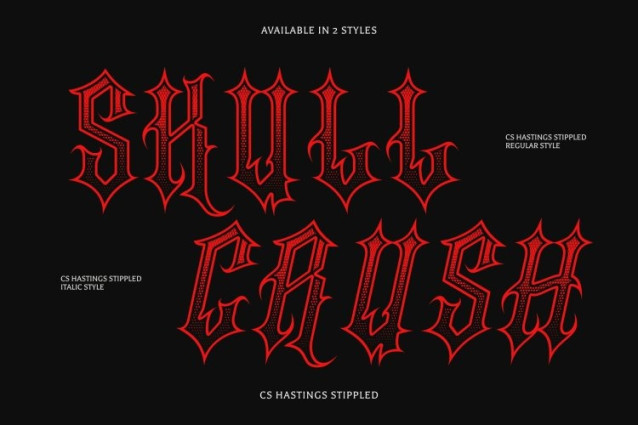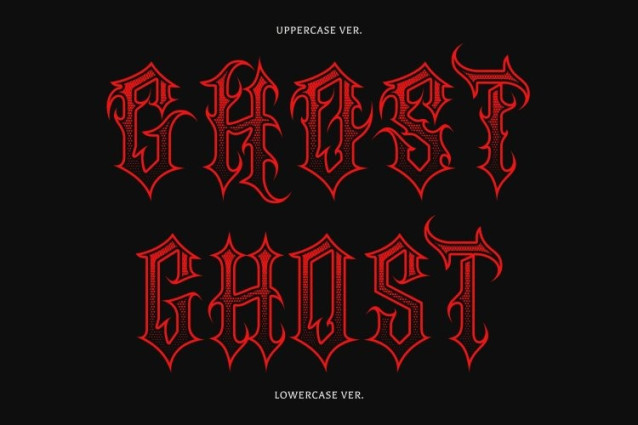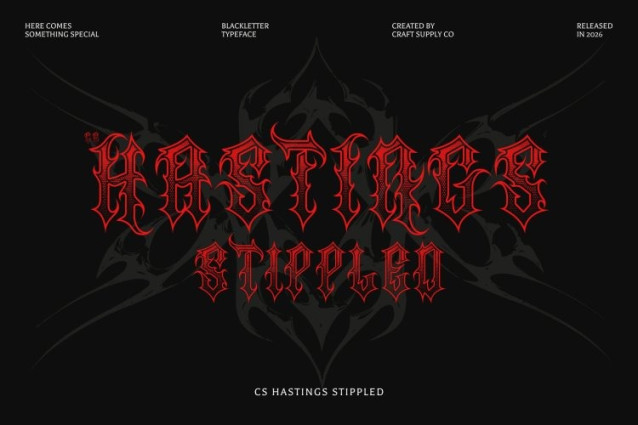
CS Hastings Stippled Font
CS Hastings Stippled Font – This is a striking blackletter display font that embodies strength, tradition, and historical elegance. Its bold, angular strokes and ornate details create a dramatic and authoritative typographic presence. Enhanced with a stippled texture, the font features a subtle dotted surface that adds depth and a handcrafted feel, enriching the classic blackletter forms with an aged, artistic character.
Inspired by Medieval and Gothic Typography
Drawing inspiration from medieval manuscripts and Gothic calligraphy, this font captures the grandeur of historic typography while maintaining a refined modern balance. Its sharp letterforms, decorative flourishes, and rhythmic structure evoke a sense of mystery and tradition. The stippled detailing enhances this historical atmosphere by giving the font a textured, almost engraved appearance.
Powerful Style for Bold and Dramatic Designs
With its commanding visual impact, this is ideal for designs that require intensity and character. The combination of strong blackletter structure and textured detailing creates a typeface that feels both bold and visually rich.
Perfect for Metal, Vintage, and Gothic Projects
This font works exceptionally well for metal band logos, tattoo designs, gothic posters, vintage branding, fantasy game titles, and album covers. Its dark elegance and striking structure ensure that designs stand out with dramatic presence.